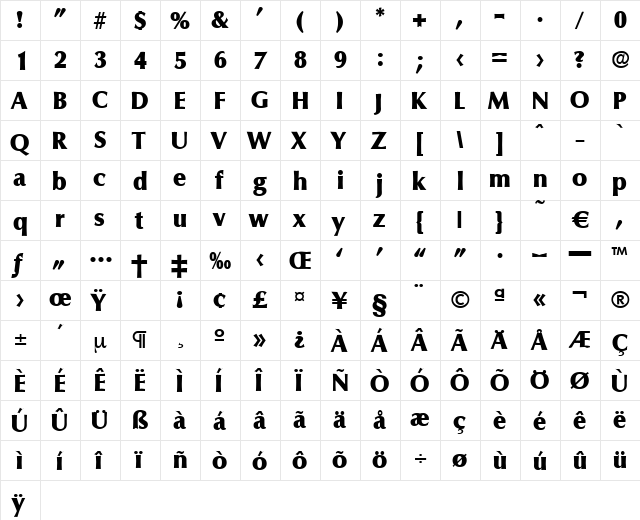
Columbia-ExtraBold Regular
Design Context for Columbia-ExtraBold Typeface
Columbia-ExtraBold takes a measured approach to typography — its balanced proportions and neutral character make it a reliable workhorse for both digital and print work. The heavy weight commands attention and anchors typographic hierarchies.